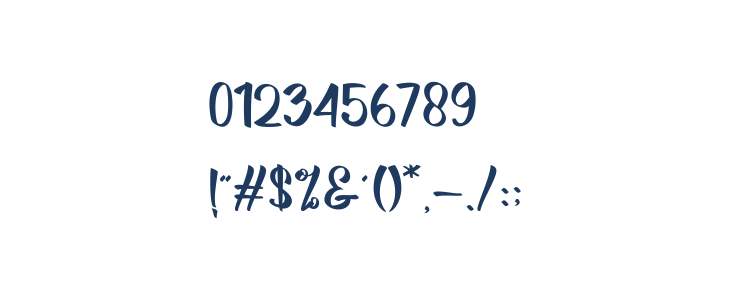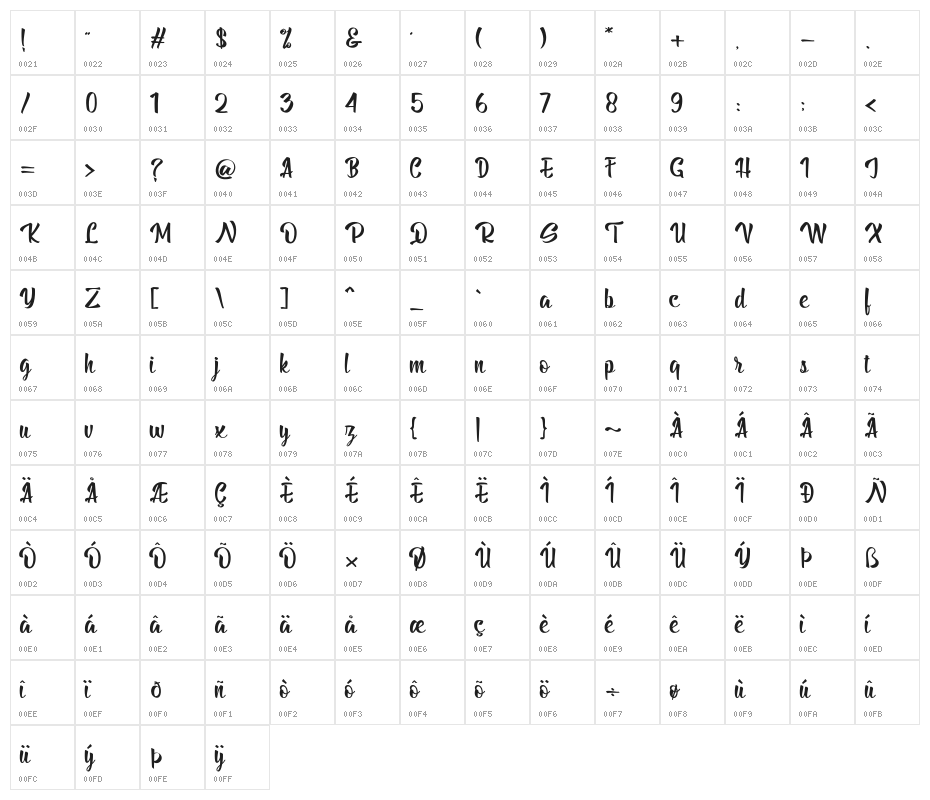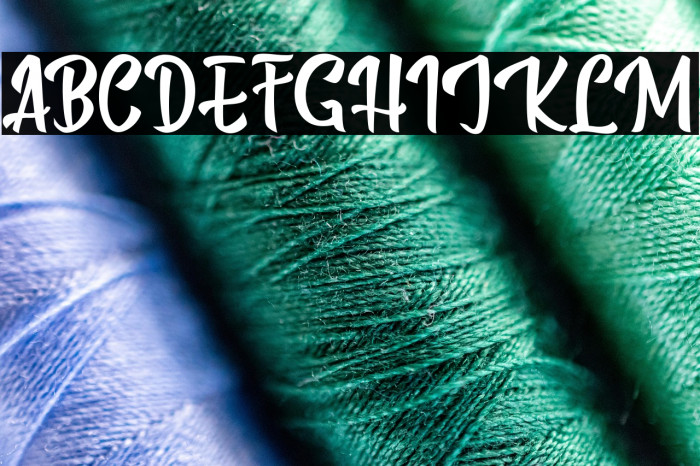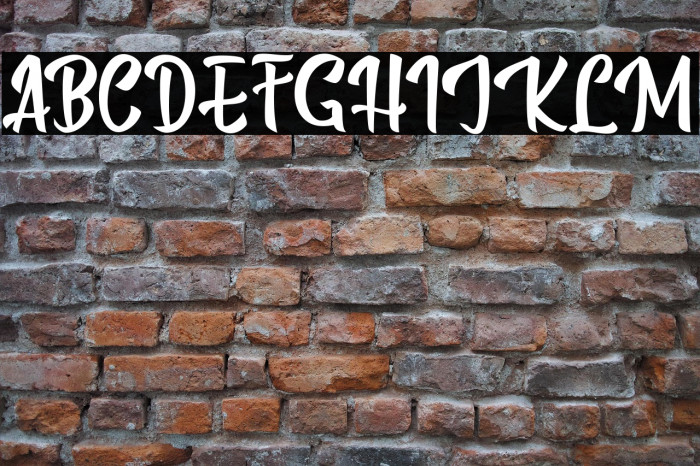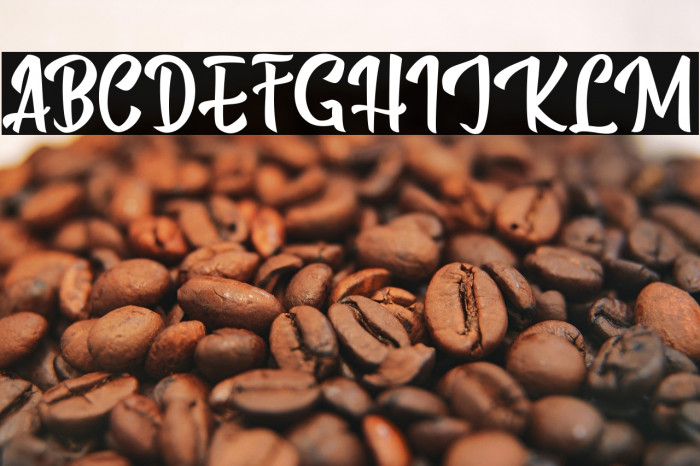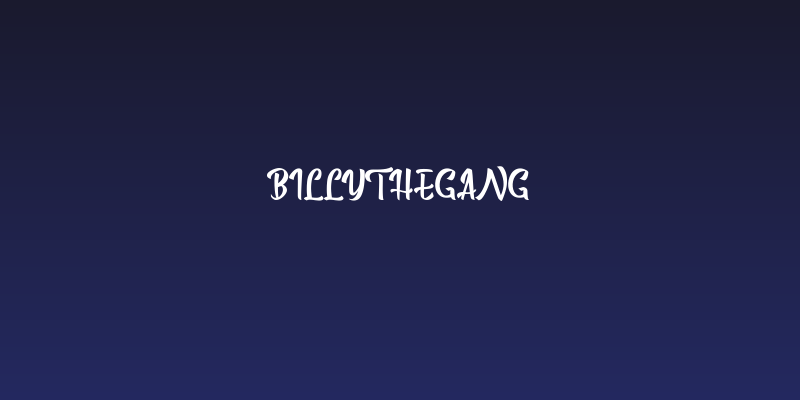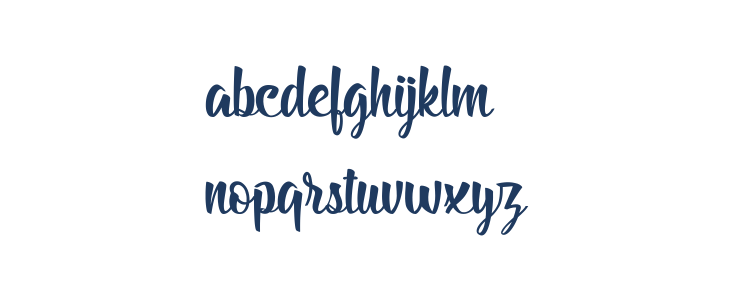
BillyTheGang Font
BillyTheGang Description
This font features a bold and dynamic script style with a playful and energetic flair. The uppercase letters are characterized by their sweeping curves and dramatic strokes, giving them a sense of movement and fluidity. The lowercase letters maintain this lively aesthetic, with some characters featuring unique loops and swashes that add to the font's overall charm. The numerals are consistent with the script style, offering a cohesive look across all characters. Special characters are designed with the same attention to detail, ensuring they blend seamlessly with the rest of the font. This font's boldness and distinctive style make it stand out, making it ideal for creative and expressive design projects.